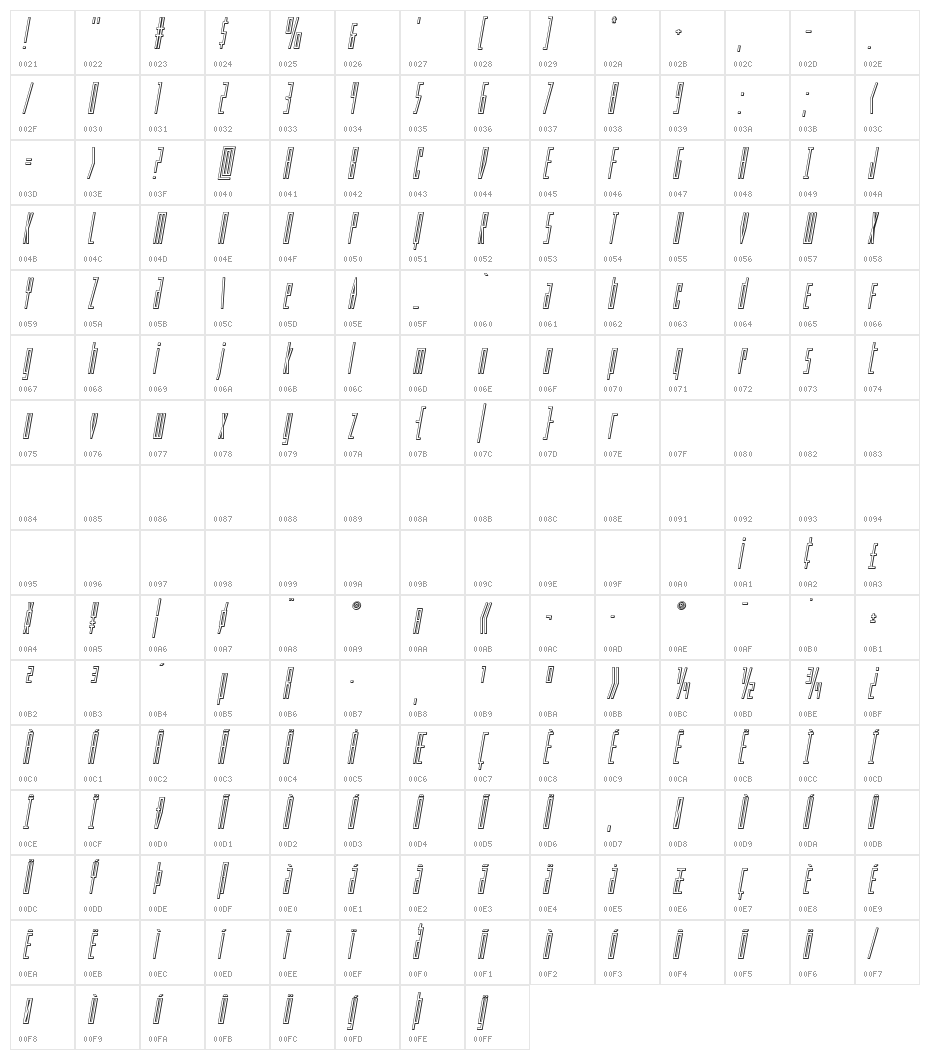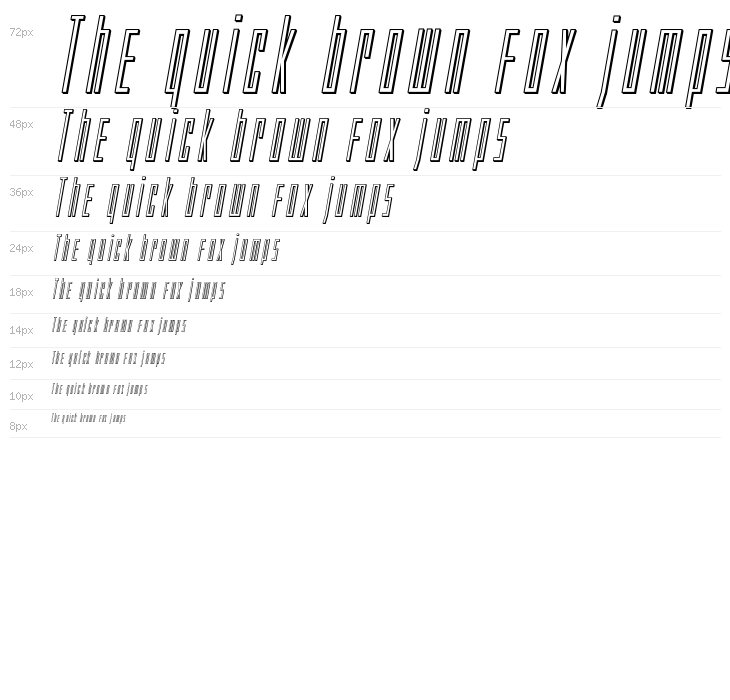
Phantacon Outline Italic Font
Phantacon Outline Italic Description
This font features a distinctive outline style with an italic slant, giving it a dynamic and modern appearance. The characters are elongated and narrow, contributing to a sleek and futuristic look. The uppercase and lowercase letters maintain a consistent height, enhancing readability while preserving the unique aesthetic. The numerals and special characters follow the same design principles, ensuring uniformity across all glyphs. The font's outline nature allows for creative layering and color usage, making it versatile for various design applications.
| Proposed Projects | Ideal for branding, posters, digital artwork, and futuristic-themed projects. |